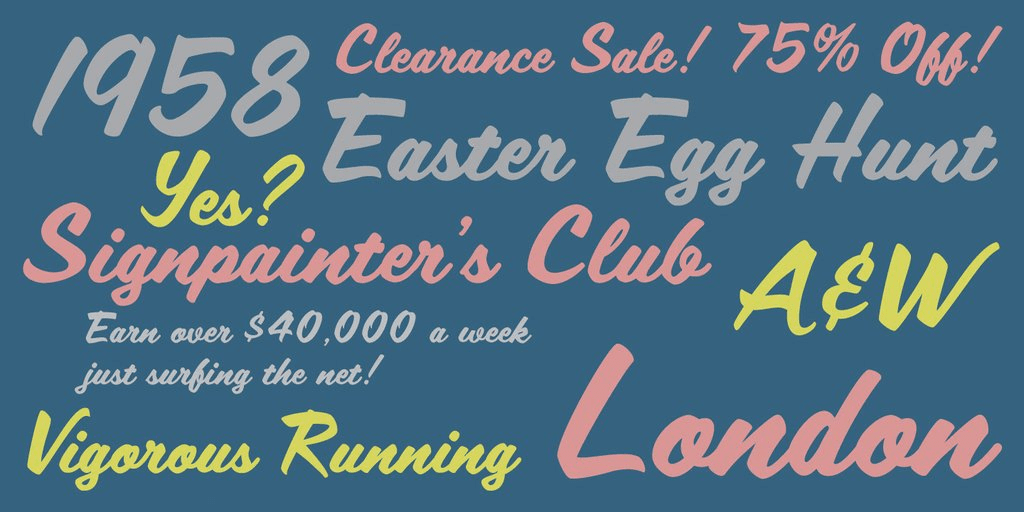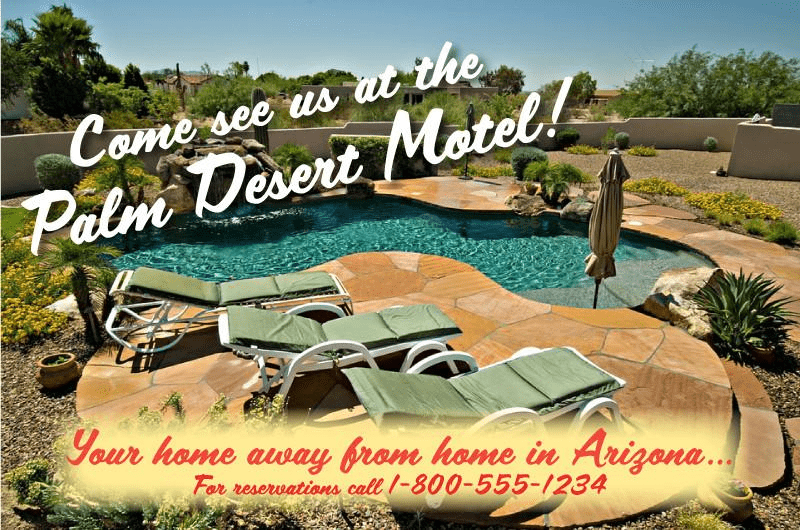
Scriptorama Tradeshow
About Scriptorama Tradeshow
Scriptorama Tradeshow is one of three fonts in the Scriptorama set designed to celebrate the hand painted sign lettering of the 1950s and 1960s. Scriptorama Tradeshow is a flowing script font that lends a warm and engaging look to any design. A perfect…